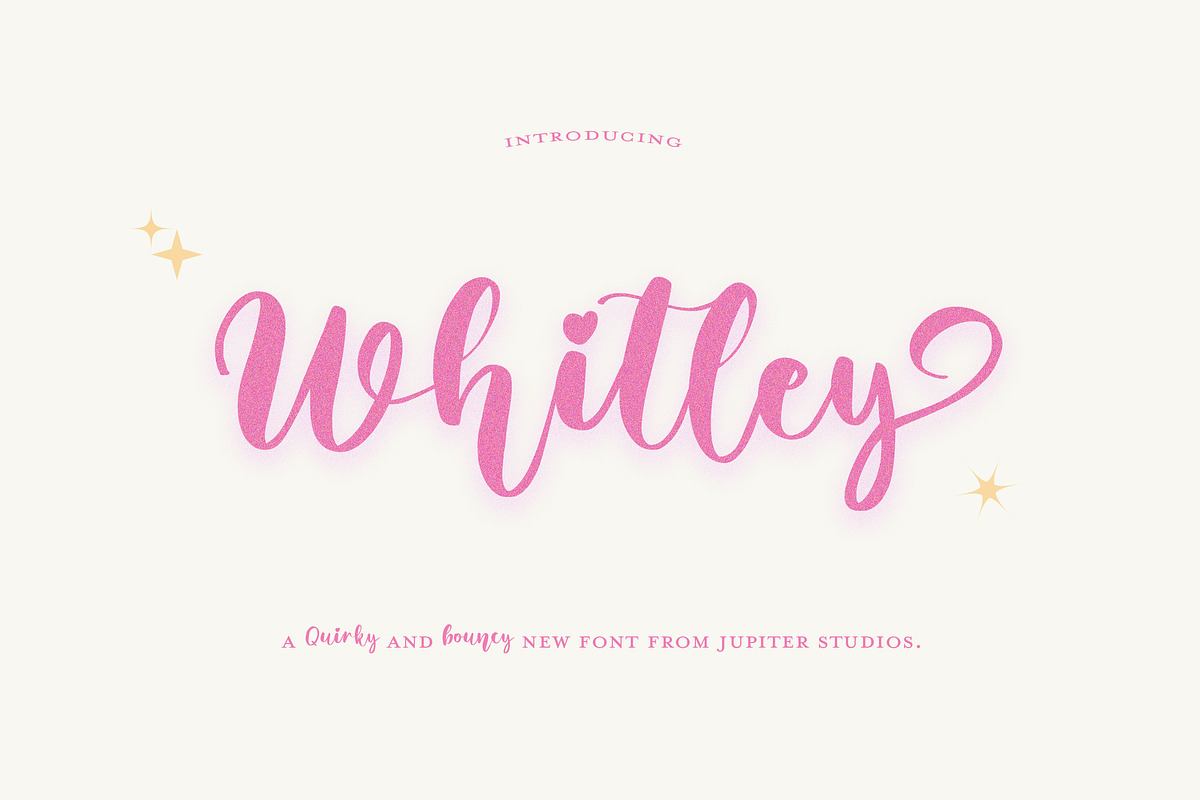
Whitley Script Font Free Download is an elegant and sophisticated handwritten script typeface that exudes timeless charm. With its smooth, flowing strokes and graceful letterforms, Whitley is perfect for luxury branding, wedding invitations, social media posts, product packaging, and more.
Its classic style, paired with modern curves, brings a refined and personal touch to any project. The font includes ligatures and stylistic alternates, allowing for customization and a more authentic, handcrafted look.